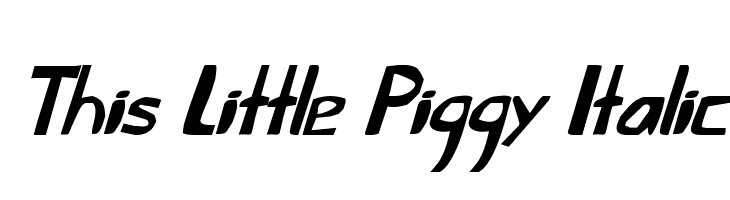
( Fonts by David Kerkhoff - www.hanodedphotography.com )
A playful, italic font with bold, hand-drawn characters and a whimsical style.
A playful, bold font with rounded, cartoon-like characters and a hand-drawn feel.
A bold, italicized, and condensed font with a playful, cartoonish style.